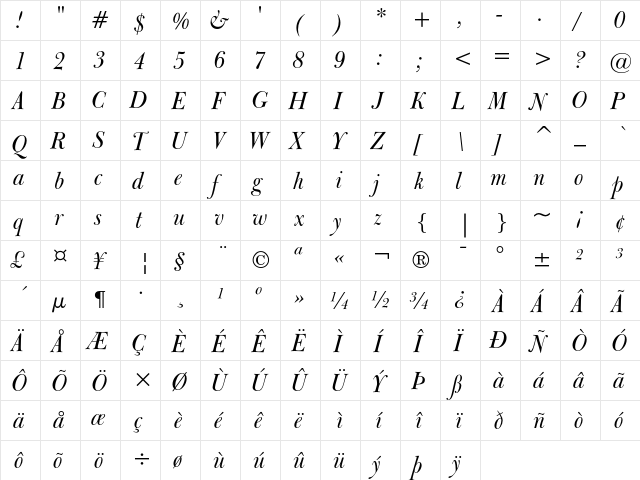
Bulmer Italic Font Preview
Bulmer Italic
Bulmer Italic Font Details
Design Context for Bulmer Typeface
Bulmer takes a measured approach to typography — its balanced proportions and neutral character make it a reliable workhorse for both digital and print work. The slanted form adds forward momentum and visual energy.
Pro Tip: Use Bulmer for emphasis, pull quotes, and subheadings where its slanted energy can add rhythm to the layout.